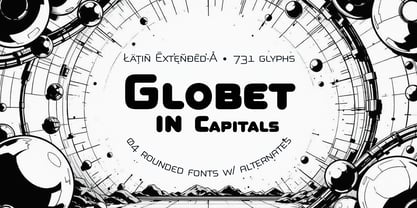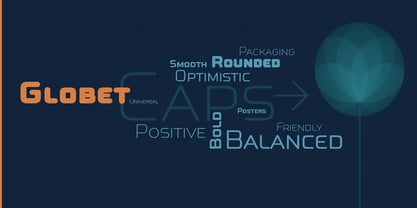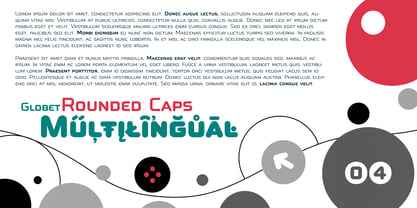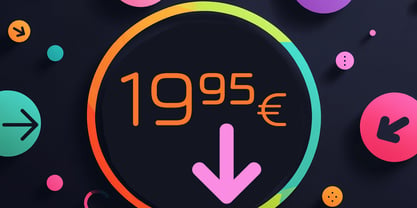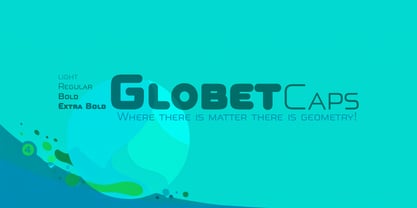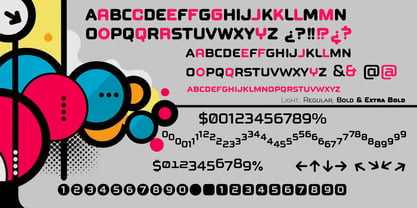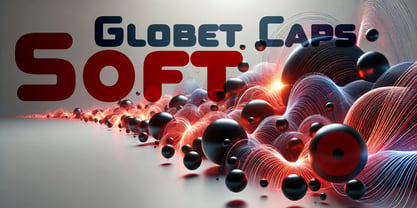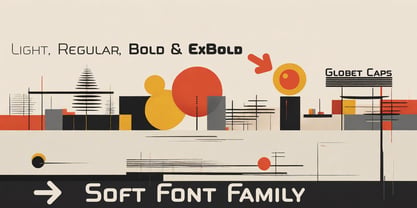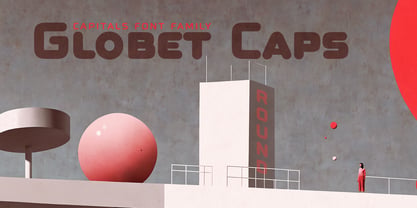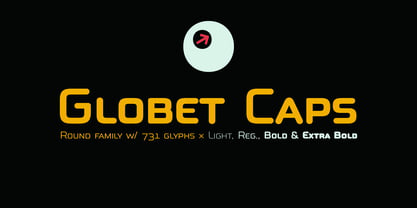
Globet Caps
by deFharo
The Globet Caps Font Family was designed by Fernando Haro and published by deFharo. Globet Caps contains 4 styles and family package options. More about this family
Visual Strength with Warmth A typeface where gentle geometry and the strength of capital letters merge to create an impeccable visual impact. Designed as an All Caps variant of Globet Round, this family retains its refined DNA: a rounded, geometric sans serif with square proportions, composed exclusively of capital letters. The result is a font with a powerful, versatile, and surprisingly warm personality. Capitals That Speak with Charisma The rounded shapes of Globet Caps soften the rigidity of its square structure, generating a typographic voice that conveys professionalism, closeness, and modernity. They are clear without being cold, powerful without being aggressive. Its unique capital letter design gives it a distinctive character and a strong presence, ideal for headlines and elements that need to stand out visually. I've included three capital letter variants (Capitals, Small Caps, and Petite Caps). These allow for the creation of subtle typographic hierarchies, enriching editorial and graphic design. With an architecture based on geometric modules, Globet Caps features four carefully tuned weights to offer maximum versatility for any project. This allows the typeface to be adapted to various design needs, from subtle text to a message with great visual impact. Light: Sophisticated delicacy, ideal for thin or secondary text. Regular: Balanced versatility for body text and logos. Bold: Sure impact, perfect for posters and strong brands. Extra Bold: Maximum presence, ideal for packaging, signage, and bold branding.
Designers: Fernando Haro
Foundry: deFharo
deFharo is the independent type foundry of Spanish graphic and type designer Fernando Haro. With more than 30 years of experience in graphic and advertising design and over a decade devoted to typeface design, Fernando Haro has developed an eclectic body of work that ranges from editorial and corporate typefaces to expressive display, geometric, technological, retro and experimental designs. His approach combines visual character with typographic functionality. Every typeface begins with drawing, proportion and a clear visual idea, and evolves through meticulous work on spacing, metrics, kerning, optical corrections and OpenType features. Rather than following a single recognizable style, deFharo explores different typographic territories according to the personality and purpose of each project. Some families are designed for long-form reading and editorial systems; others are built for branding, headlines, packaging, signage or highly expressive graphic compositions. A strong interest in vector drawing, typographic systems and functional design runs throughout the collection. Alternative characters, small caps, Petite Caps, fractions, numerals, ligatures, symbols and extended language support are frequently developed as integral parts of the typeface rather than as afterthoughts. The result is a growing collection of typefaces designed to be both distinctive and useful — fonts with personality, but also with the technical precision required for professional graphic and editorial work. deFharo typefaces are designed by Fernando Haro and published independently from Spain.